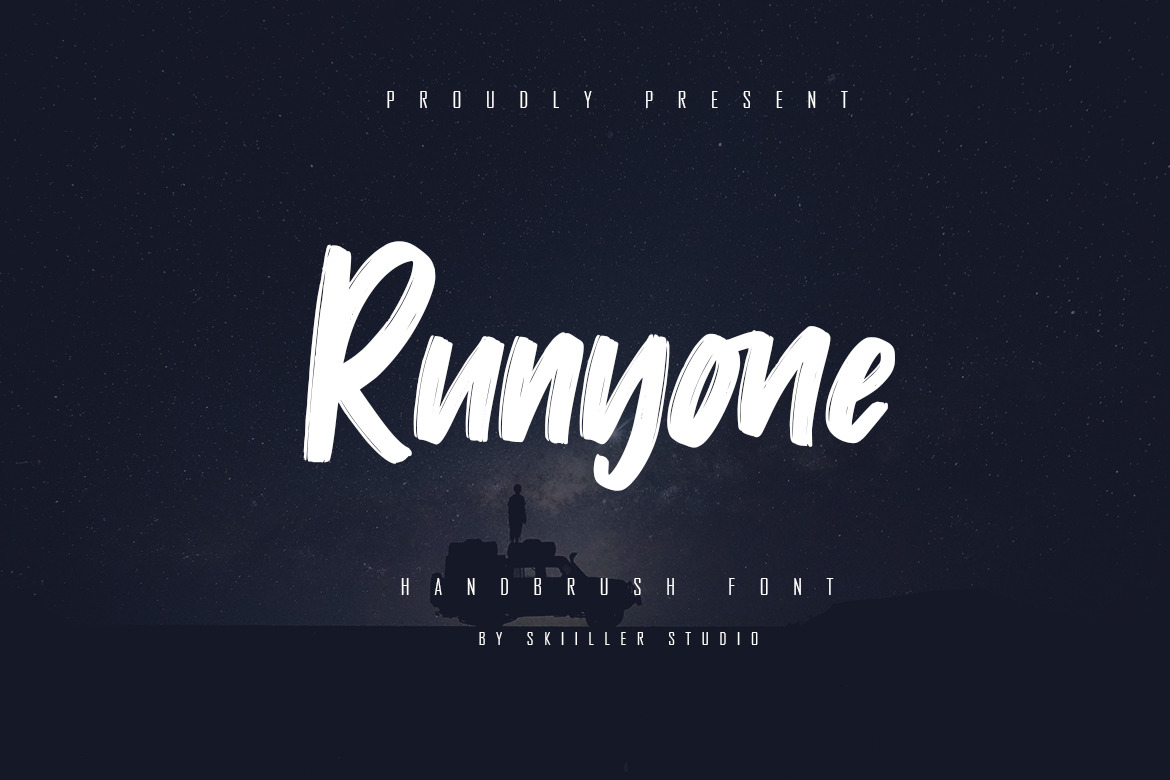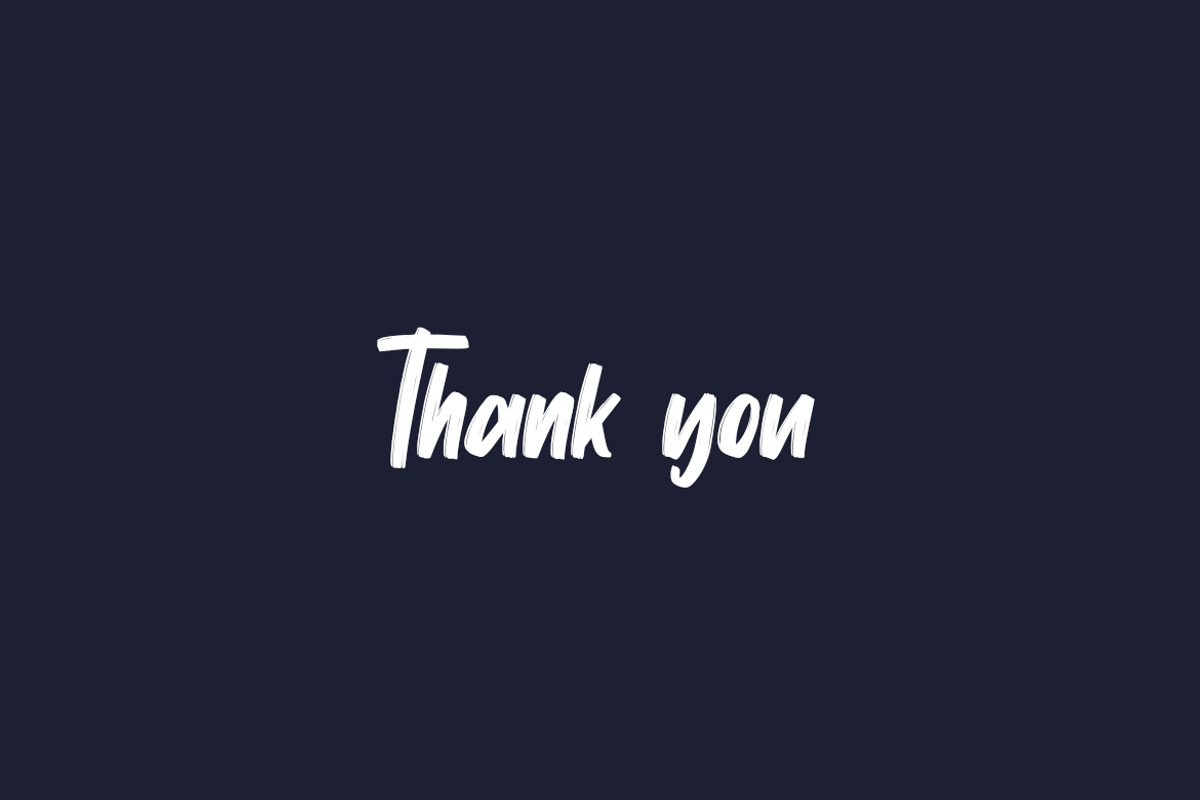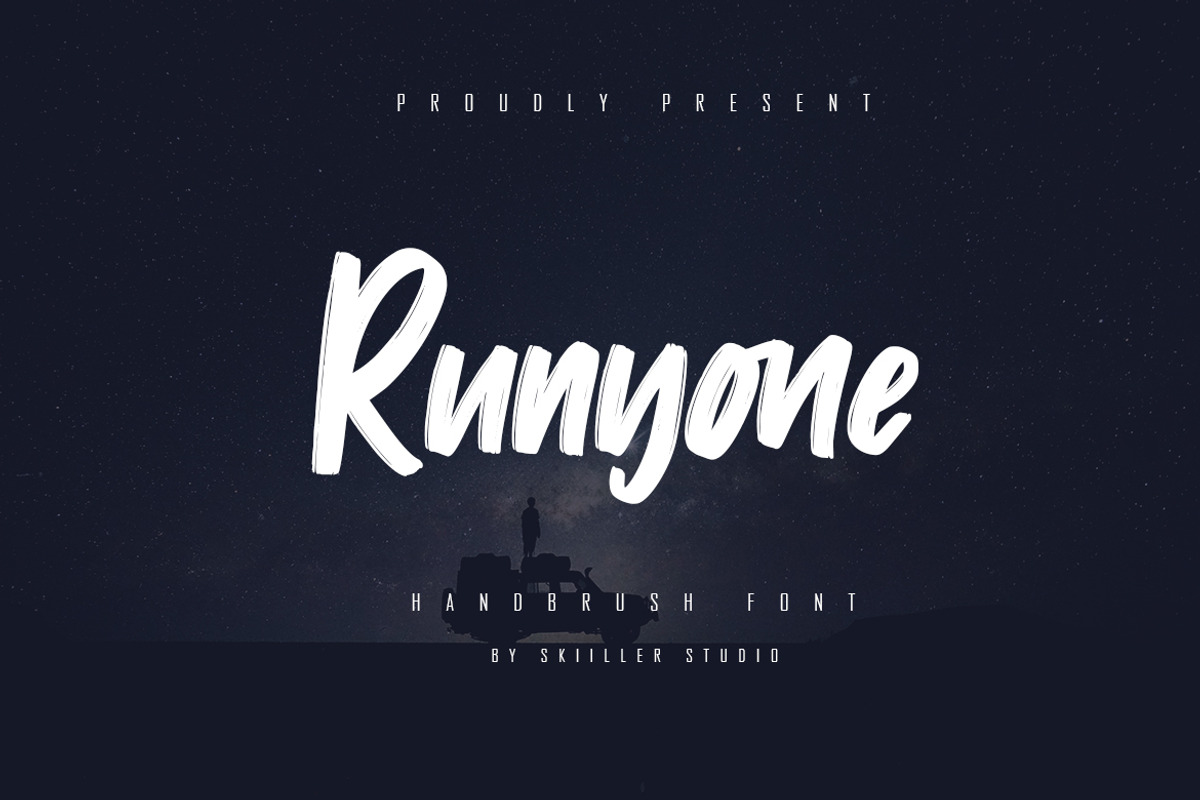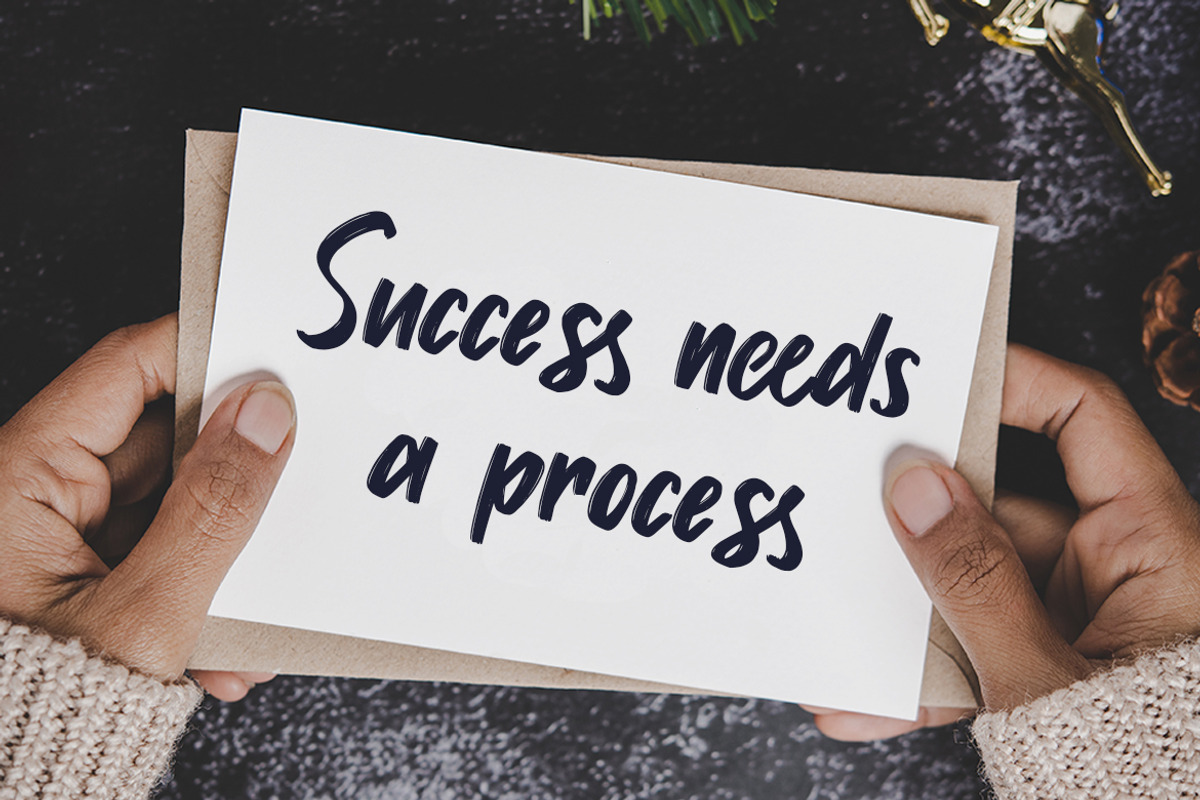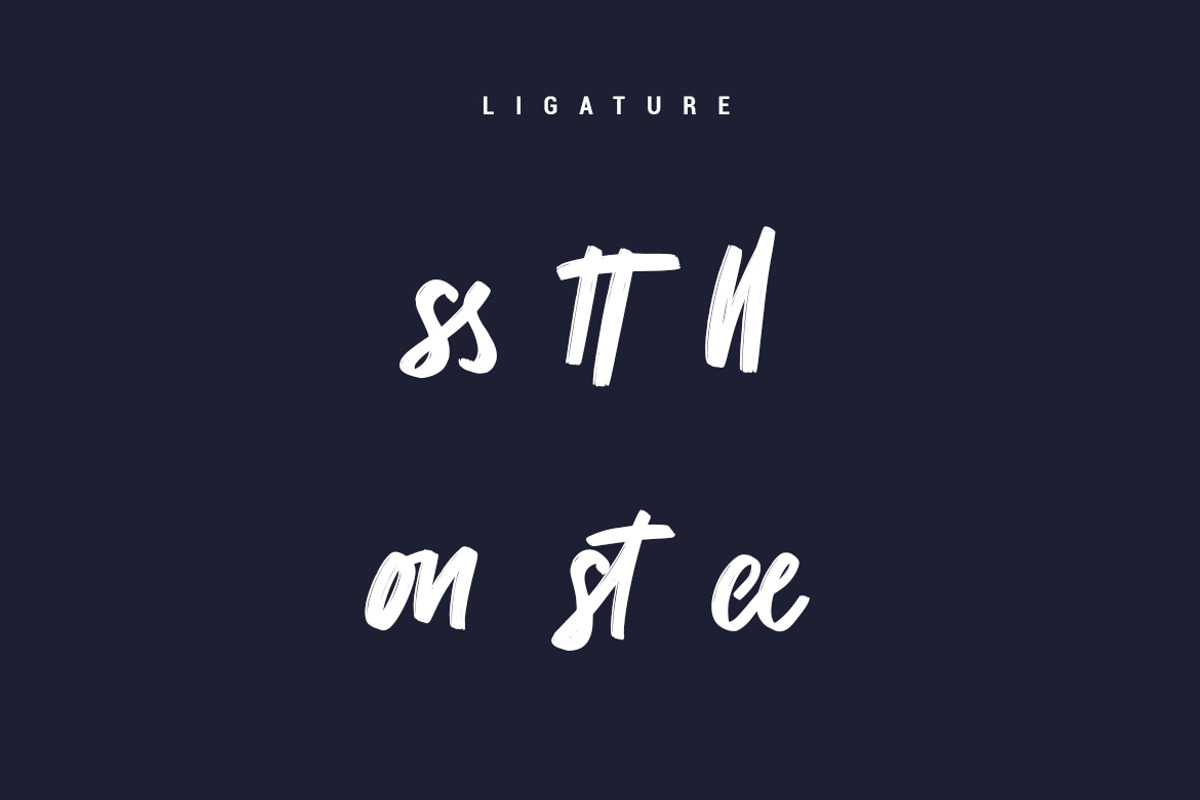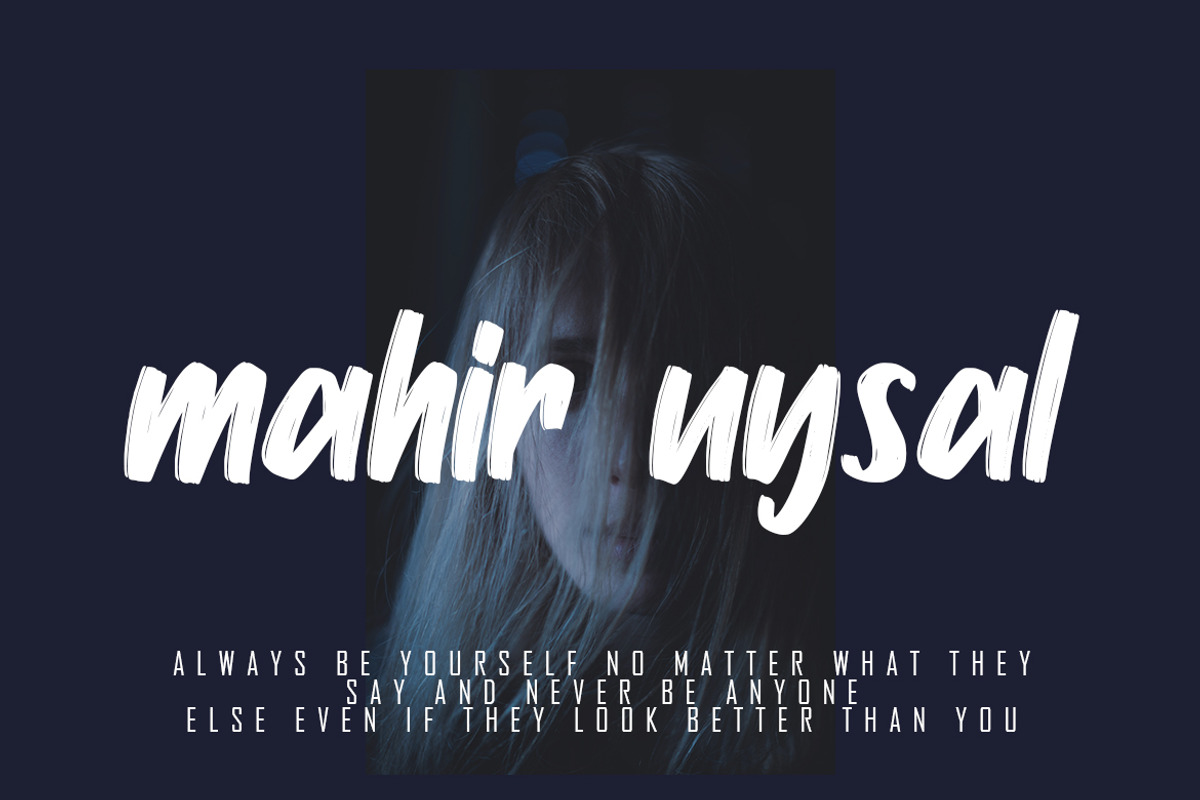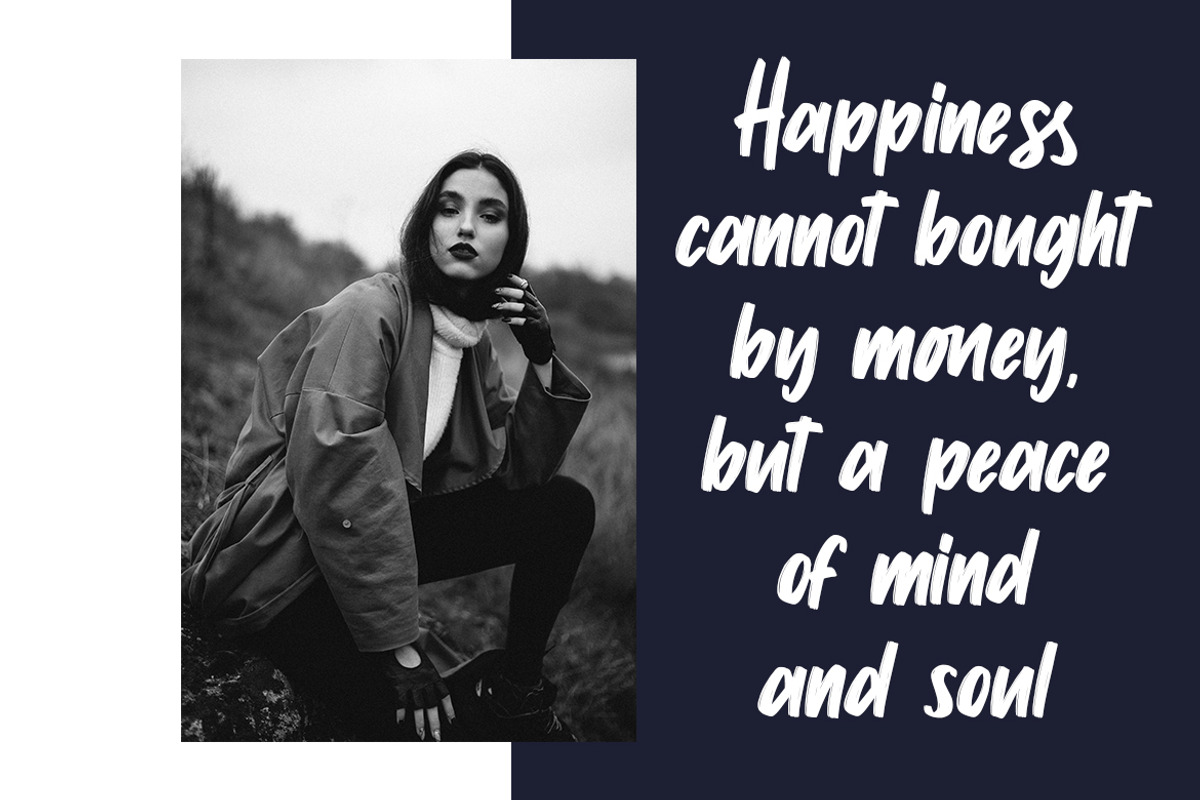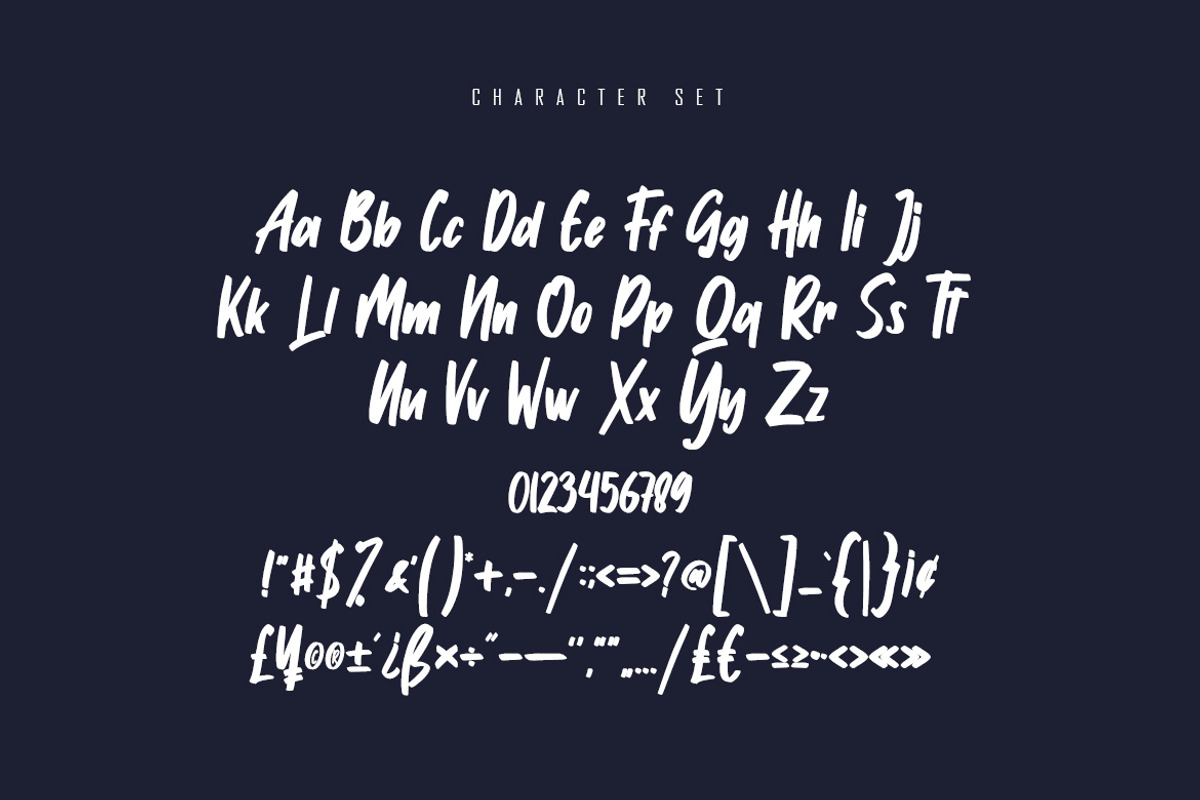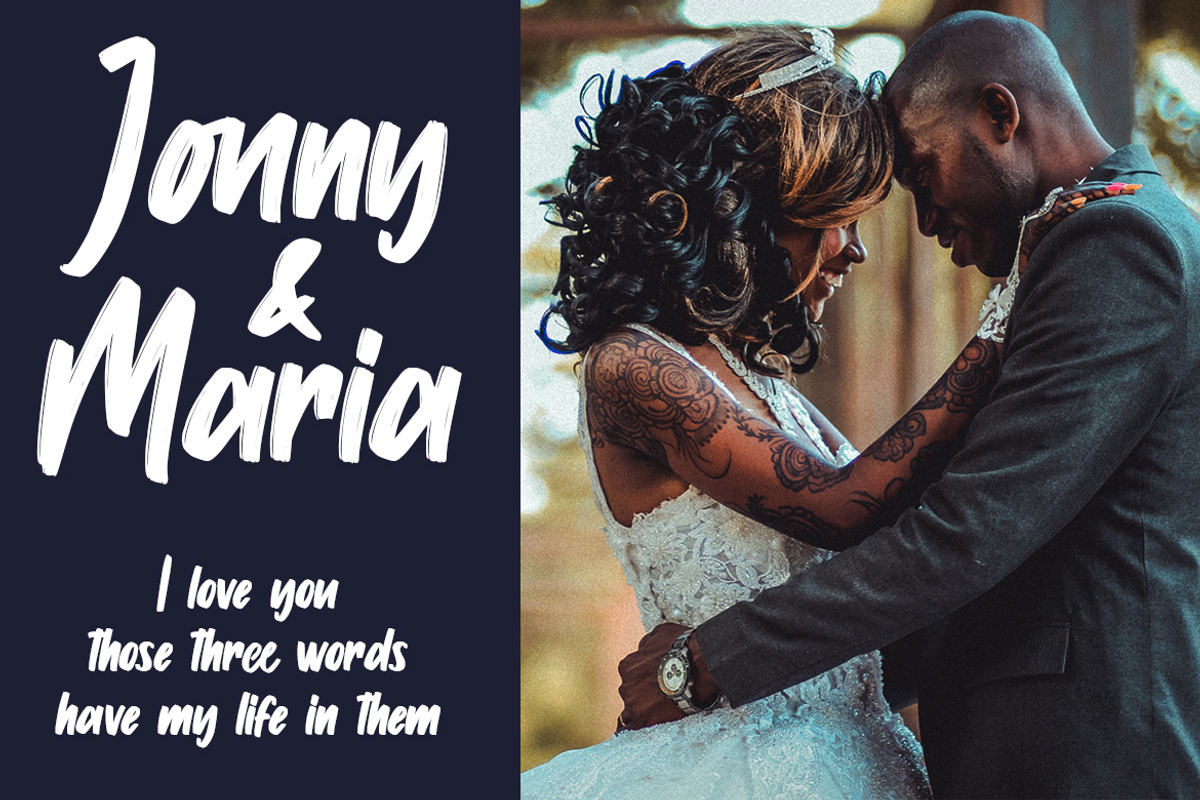
Runyone - Handbrush Font
Runyone is a modern and brushed display font, crafted to give your headlines and logotype projects a stylish touch. This font reads as strong, confident, and dynamic and can add tons of urban character to your designs.